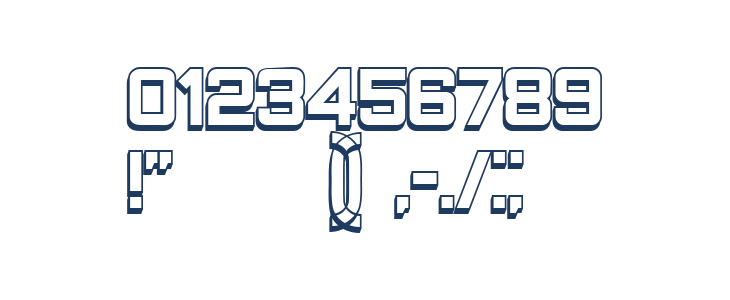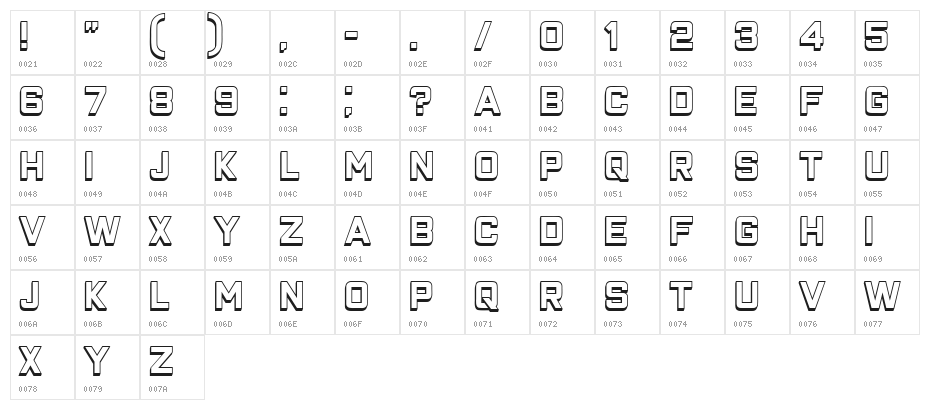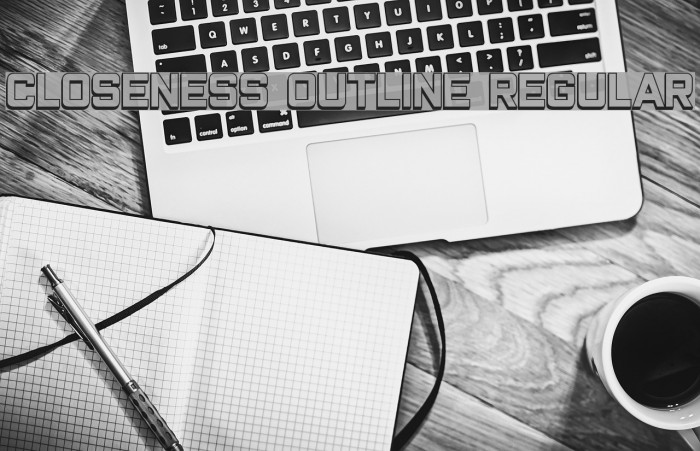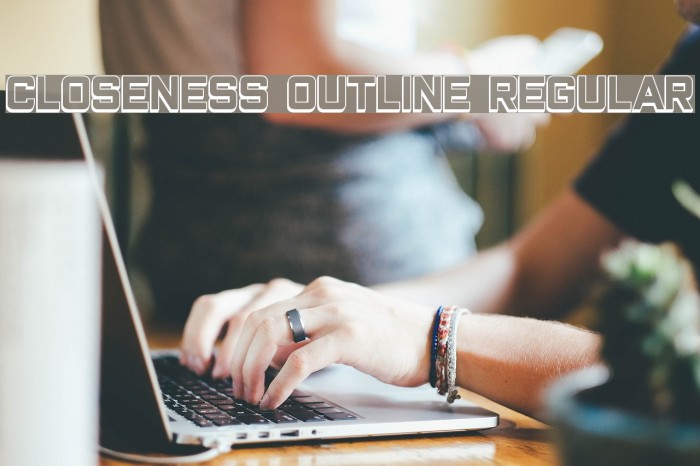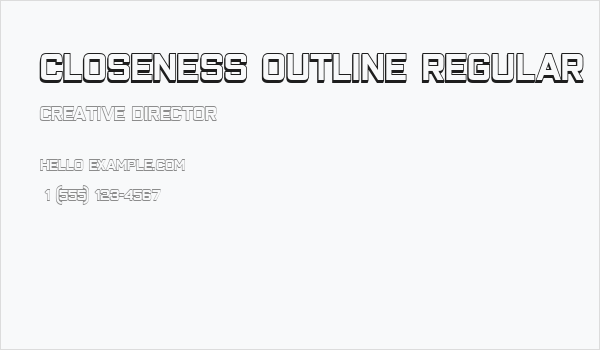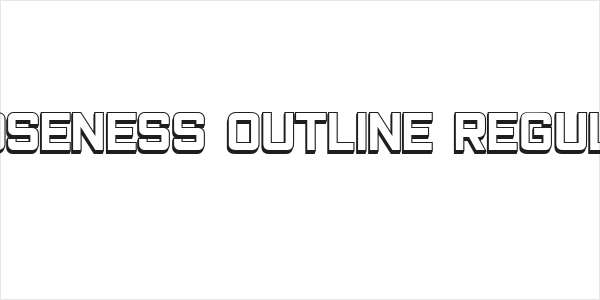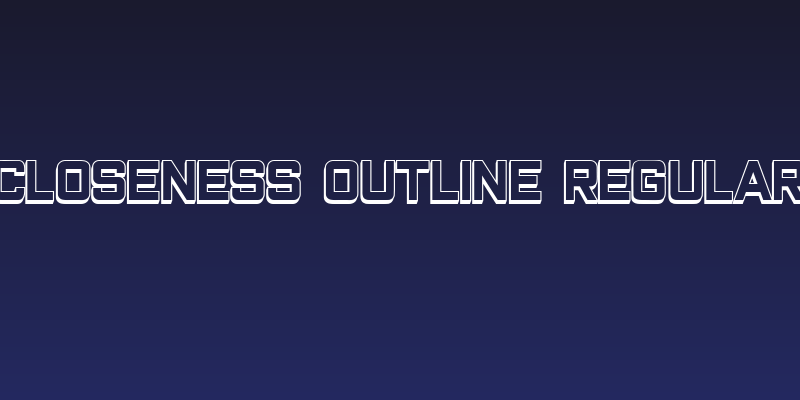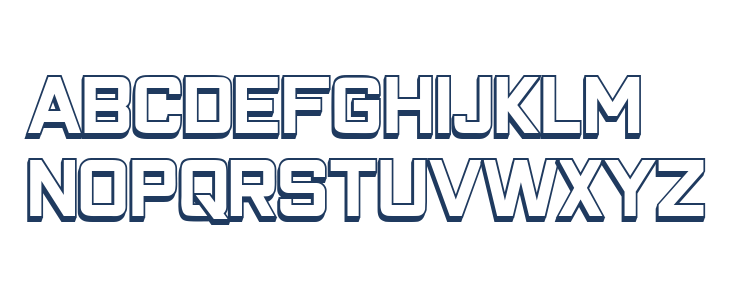
Closeness Outline Regular Font
Closeness Outline Regular Description
This font features a bold, outlined style that gives it a striking and modern appearance. The characters are uppercase and numerals, each with a consistent outline that adds depth and dimension. The lines are clean and precise, creating a geometric and structured look. The spacing between characters is normal, allowing for readability while maintaining the bold impact of the design. This font is ideal for making a statement, with its high contrast between the outline and the inner space of each character. The overall style is contemporary and eye-catching, suitable for various creative applications.
| Proposed Projects | Ideal for headlines, posters, branding, and any project that requires a bold and modern aesthetic. |